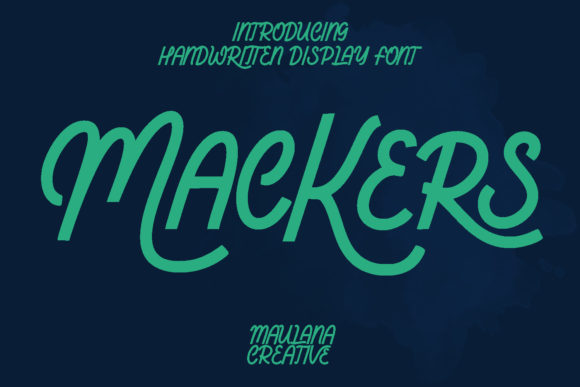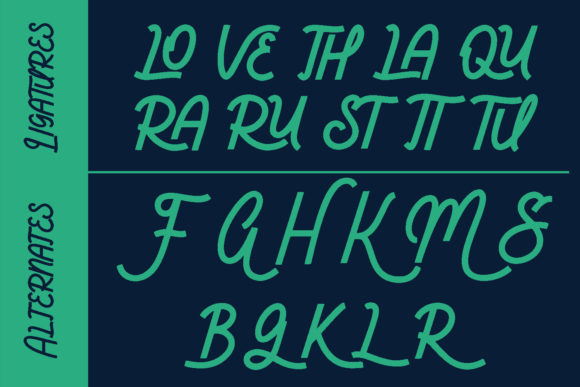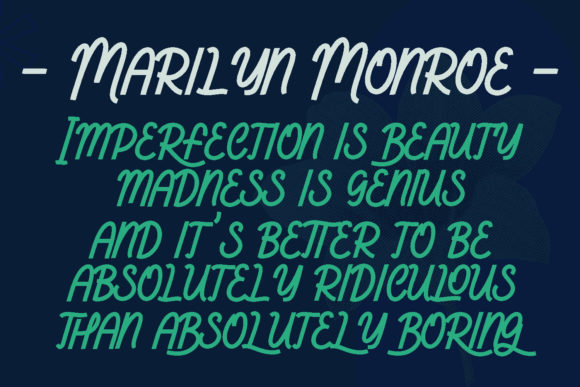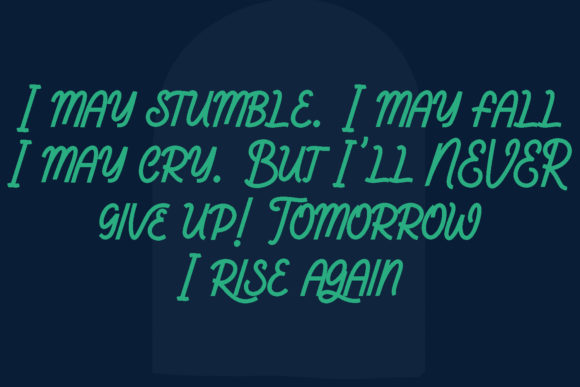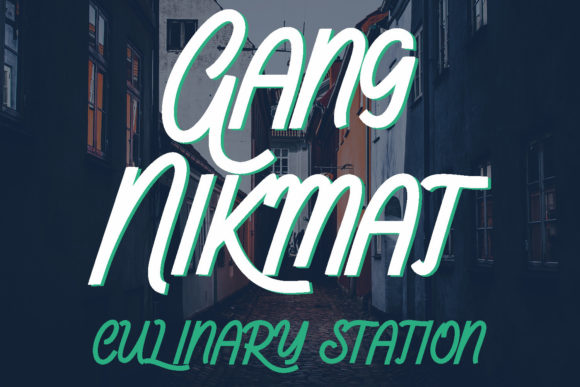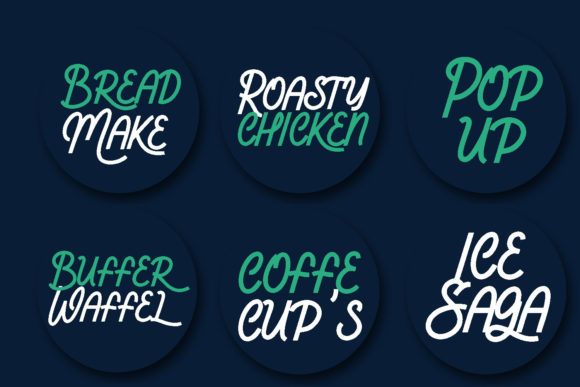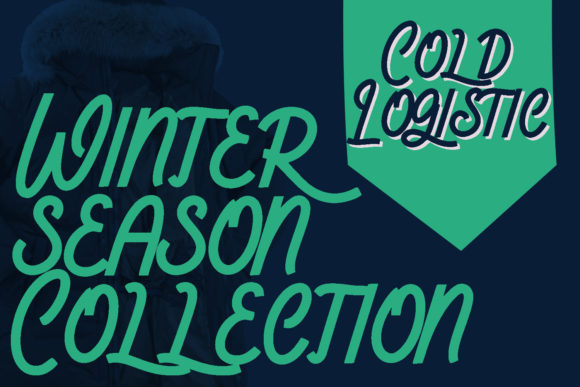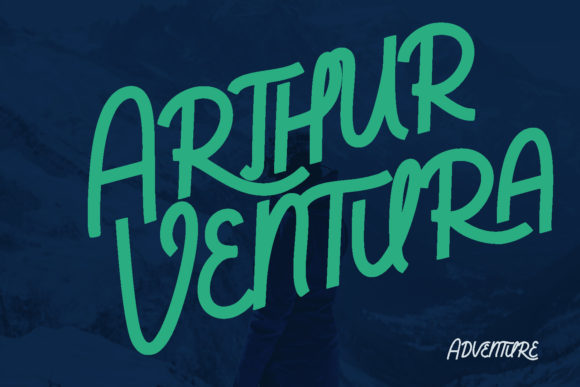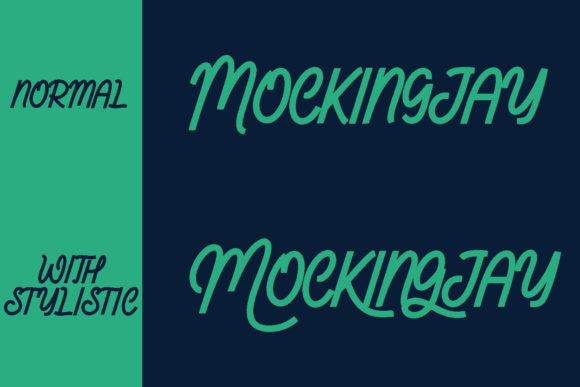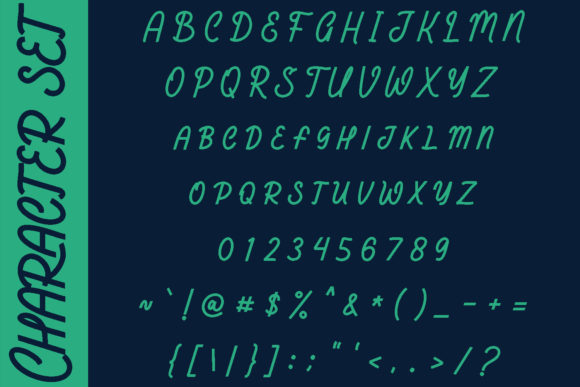
Mackers Font
About Mackers Font
Introducing “Mackers,” a lovely and delicate script font that emanates elegance and class. Crafted with precision, this font is designed for those who seek a beautiful and refreshing look for their designs.
Mackers stands out with its graceful script, capturing the essence of sophistication and timeless beauty. Whether you’re working on invitations, branding, product packaging, or any design project that demands a touch of refinement, this font is the perfect choice to elevate your work.
The delicate strokes of Mackers add a subtle yet impactful elegance to your text, making it suitable for a variety of applications. From formal invitations to luxurious branding, this font exudes a sense of charm and sophistication that enhances the overall visual appeal of your designs.
Picture Mackers gracing wedding invitations, creating a romantic and captivating atmosphere. Imagine it becoming the signature element in your branding projects, adding a touch of class to your corporate identity. Its versatile design allows it to seamlessly integrate into various contexts, making it a valuable asset for designers with a penchant for elegance.
In essence, Mackers is not just a font; it’s a design statement that brings a refreshing and beautiful look to your projects. Its delicate script is an invitation to infuse your designs with a touch of timeless beauty and sophistication. Choose Mackers to elevate your work and let it exude elegance and class across invitations, branding, and any creative endeavor that seeks a beautiful and refreshing aesthetic.